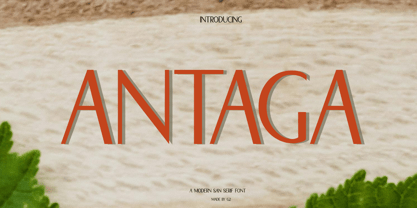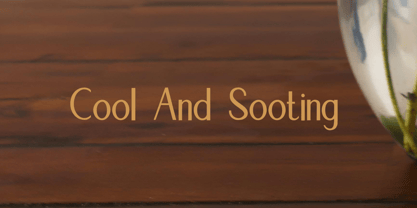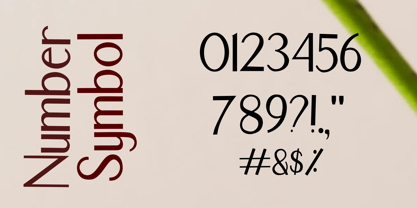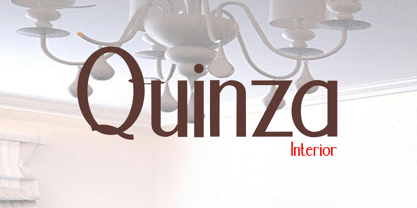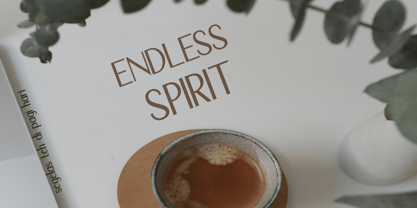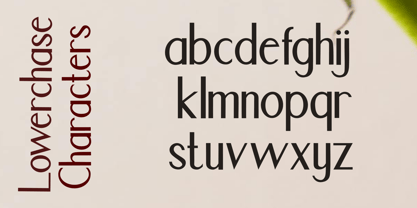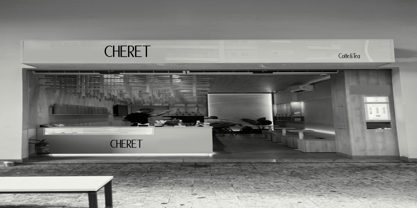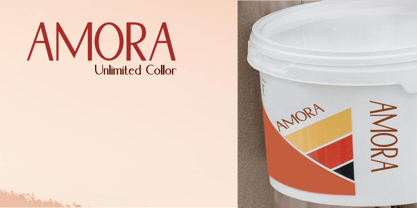
Antaga
La familia tipográfica Antaga fue diseñada por Eka Setiono y publicada por G2 Studio. Antaga contiene 1 estilos. Más información sobre esta familia
The "Antaga" font is a sans serif typeface that blends simplicity and elegance. With clean lines and balanced proportions, Antaga offers high readability, making it suitable for various design applications. Available in multiple weights, this font is ideal for branding, promotional materials, and digital content. With its modern and sophisticated feel, Antaga allows users to express their creativity in an engaging and clear manner.
G2 Studio is a creative foundry located in Purbalingga, Central Java, Indonesia, founded by Eka Setiono. The studio specializes in designing fonts and typography, creating unique and functional typefaces for both digital and print applications. G2 Studio aims to provide innovative typographic solutions, blending art with technology. Under the leadership of Eka Setiono, G2 Studio continues to grow as a hub for font design, committed to quality and creativity, while also showcasing the uniqueness of Indonesian typography to the global market.4o mini